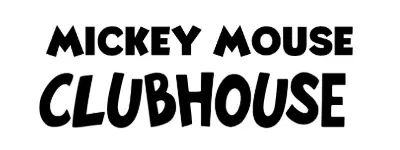
The Mickey Mouse Clubhouse Font is a playful and whimsical typeface that perfectly captures the fun and magical essence of the beloved Disney Channel series. The show, which aired from 2006 to 2016, features Mickey Mouse and his friends solving problems and going on adventures in their magical clubhouse. The title logo of the show uses a combination of two distinct fonts.
Similar Fonts to Mickey Mouse Clubhouse Font
Minnie by Rodrigo Typo – This is the exact font used for the “Mickey Mouse” part of the logo. It’s bubbly, rounded, and perfect for kid-friendly designs.
Jumping Bean by Stuart Sandler – This font is used for the “Clubhouse” part of the logo. It has a playful and bouncy style that matches the tone of the show.
These fonts are great alternatives if you want to capture the same cheerful and magical vibe as the Mickey Mouse Clubhouse logo.